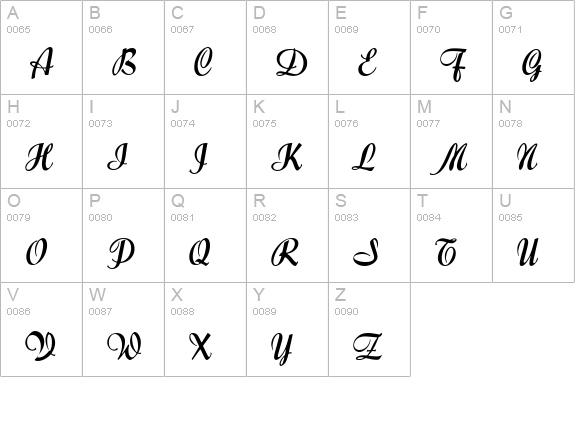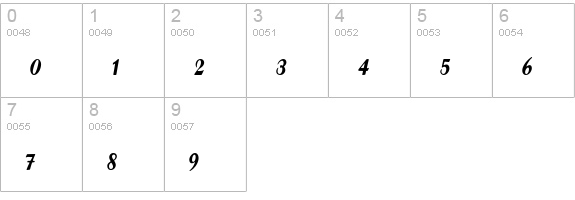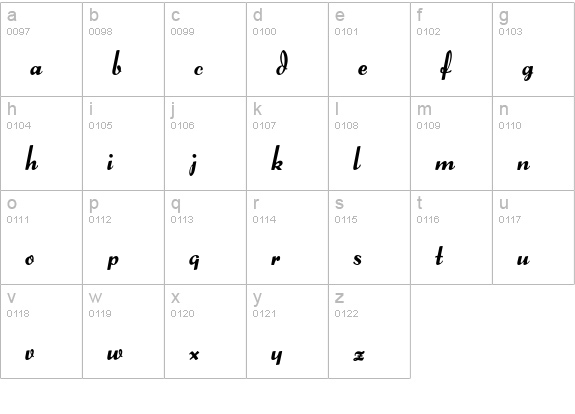
Forelle Font Details
Forelle font is a modern and elegant typeface that exudes sophistication and style. Its sleek lines and graceful curves make it perfect for a wide range of design projects, from branding to editorial design. The versatility of Forelle font allows it to be used in both bold headlines and delicate body text. What sets Forelle font apart is not only its aesthetic appeal but also its accessibility. This exquisite font is available for free download at FontsMarket.com, making it easy for designers and creatives to incorporate it into their work without breaking the bank. Its seamless integration with various design software ensures a smooth and hassle-free design process. Whether you're working on a professional project or a personal endeavor, Forelle font is sure to elevate your design with its timeless charm and contemporary flair. Download it for free today and unleash your creativity with this stunning typeface.